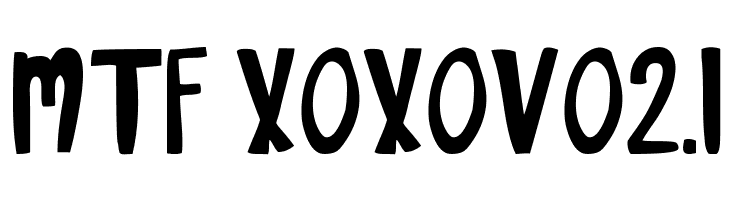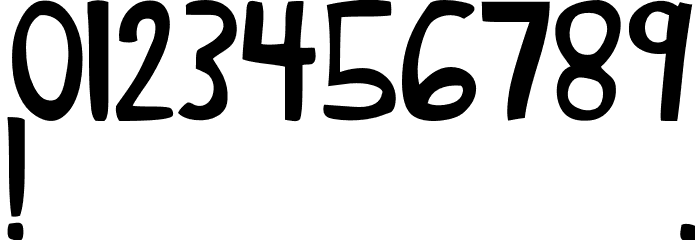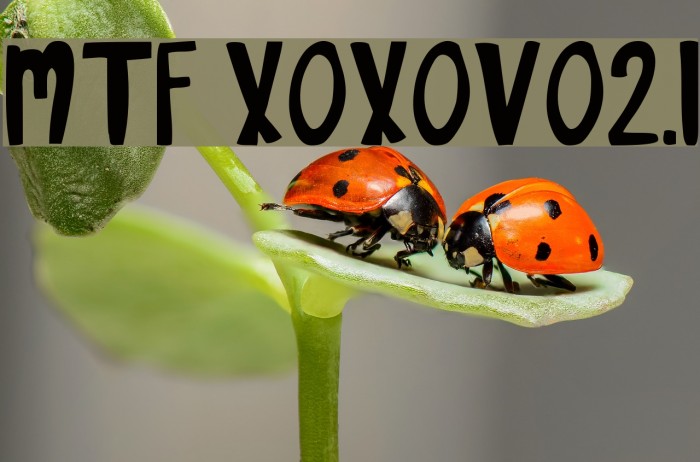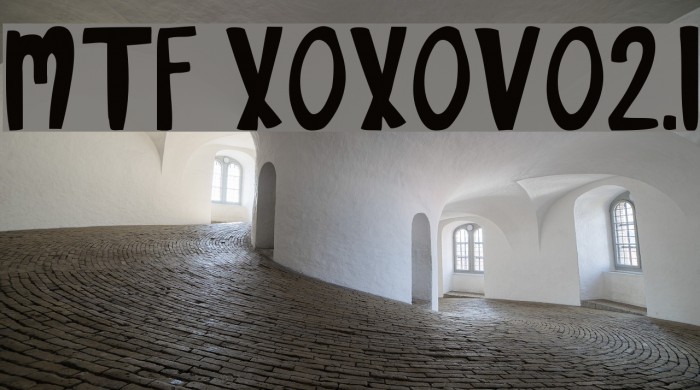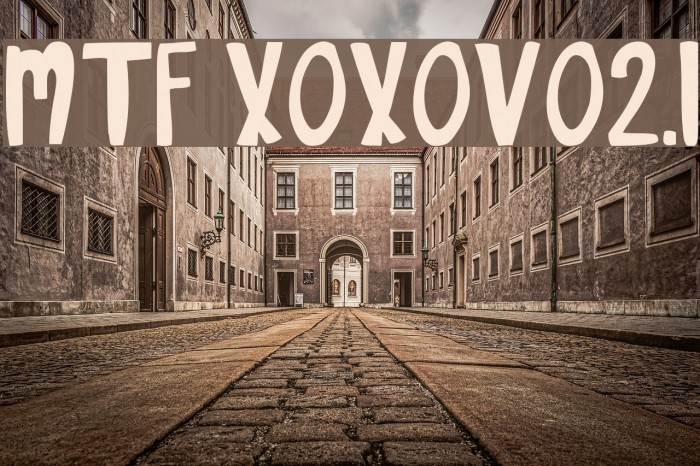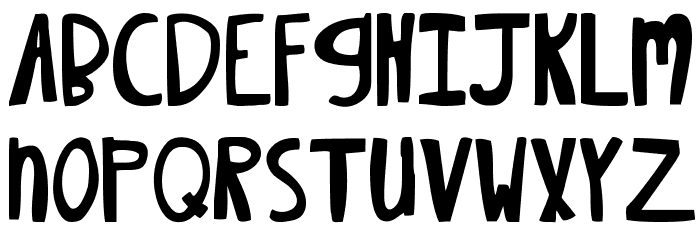
MTF XOXOvo2.1 Font
This font features a playful and bold style with a hand-drawn appearance. The letters are characterized by their irregular shapes and varying stroke widths, giving them a whimsical and informal look. The uppercase and lowercase letters maintain a consistent style, with rounded edges and a slightly uneven baseline, adding to the casual feel. The numerals and exclamation mark follow the same design principles, ensuring cohesion across all characters. The overall design is eye-catching and suitable for projects that require a fun and approachable aesthetic.
A playful, bold, hand-drawn font with irregular shapes and varying stroke widths.
• Proposed Projects: Ideal for children's books, playful branding, casual posters, and creative social media graphics.